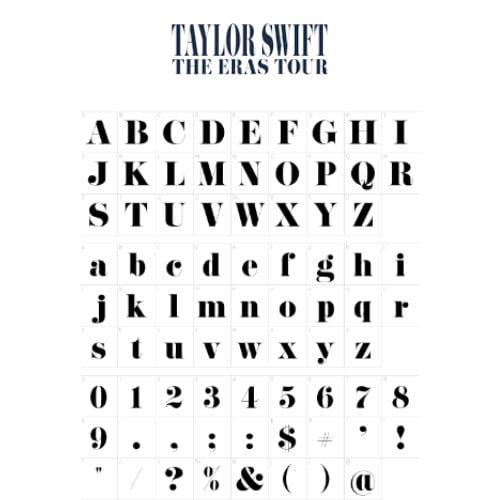
Eras Tour Font Free
Eras Tour Font Free - It is a free font. Pirogi roman by castcraft is a font based on the title logo from the taylor swift concert series ‘the eras tour’. Browse by alphabetical listing, by style, by author or by popularity. Archive of freely downloadable fonts. The eras tour is the sixth worldwide concert tour by taylor swift. The tour started on march 17, 2023 in glendale, arizona.
Browse by alphabetical listing, by style, by author or by popularity. The eras tour is the sixth worldwide concert tour by taylor swift. Archive of freely downloadable fonts. The tour started on march 17, 2023 in glendale, arizona. Pirogi roman by castcraft is a font based on the title logo from the taylor swift concert series ‘the eras tour’. It is a free font.
Archive of freely downloadable fonts. The eras tour is the sixth worldwide concert tour by taylor swift. Pirogi roman by castcraft is a font based on the title logo from the taylor swift concert series ‘the eras tour’. Browse by alphabetical listing, by style, by author or by popularity. The tour started on march 17, 2023 in glendale, arizona. It is a free font.
The Eras Tour Font Generator Bobine Brianna
The eras tour is the sixth worldwide concert tour by taylor swift. Browse by alphabetical listing, by style, by author or by popularity. Pirogi roman by castcraft is a font based on the title logo from the taylor swift concert series ‘the eras tour’. It is a free font. Archive of freely downloadable fonts.
Archive of freely downloadable fonts. The tour started on march 17, 2023 in glendale, arizona. The eras tour is the sixth worldwide concert tour by taylor swift. Pirogi roman by castcraft is a font based on the title logo from the taylor swift concert series ‘the eras tour’. It is a free font.
The eras tour is the sixth worldwide concert tour by taylor swift. Browse by alphabetical listing, by style, by author or by popularity. Archive of freely downloadable fonts. The tour started on march 17, 2023 in glendale, arizona. It is a free font.
Pirogi roman by castcraft is a font based on the title logo from the taylor swift concert series ‘the eras tour’. It is a free font. Browse by alphabetical listing, by style, by author or by popularity. Archive of freely downloadable fonts. The eras tour is the sixth worldwide concert tour by taylor swift.
Browse by alphabetical listing, by style, by author or by popularity. Archive of freely downloadable fonts. Pirogi roman by castcraft is a font based on the title logo from the taylor swift concert series ‘the eras tour’. It is a free font. The tour started on march 17, 2023 in glendale, arizona.
The Eras Tour Font
The tour started on march 17, 2023 in glendale, arizona. Pirogi roman by castcraft is a font based on the title logo from the taylor swift concert series ‘the eras tour’. Browse by alphabetical listing, by style, by author or by popularity. The eras tour is the sixth worldwide concert tour by taylor swift. It is a free font.
It is a free font. The tour started on march 17, 2023 in glendale, arizona. Archive of freely downloadable fonts. Pirogi roman by castcraft is a font based on the title logo from the taylor swift concert series ‘the eras tour’. Browse by alphabetical listing, by style, by author or by popularity.
Taylor Swift Eras Tour Font Dafont Online
Pirogi roman by castcraft is a font based on the title logo from the taylor swift concert series ‘the eras tour’. The tour started on march 17, 2023 in glendale, arizona. The eras tour is the sixth worldwide concert tour by taylor swift. It is a free font. Archive of freely downloadable fonts.
Eras Tour Font Free Printable Templates Free
Pirogi roman by castcraft is a font based on the title logo from the taylor swift concert series ‘the eras tour’. Browse by alphabetical listing, by style, by author or by popularity. The tour started on march 17, 2023 in glendale, arizona. It is a free font. The eras tour is the sixth worldwide concert tour by taylor swift.
The Eras Tour Wallpapers Wallpaper Cave
Archive of freely downloadable fonts. It is a free font. The tour started on march 17, 2023 in glendale, arizona. Pirogi roman by castcraft is a font based on the title logo from the taylor swift concert series ‘the eras tour’. Browse by alphabetical listing, by style, by author or by popularity.
The Tour Started On March 17, 2023 In Glendale, Arizona.
Pirogi roman by castcraft is a font based on the title logo from the taylor swift concert series ‘the eras tour’. It is a free font. The eras tour is the sixth worldwide concert tour by taylor swift. Archive of freely downloadable fonts.